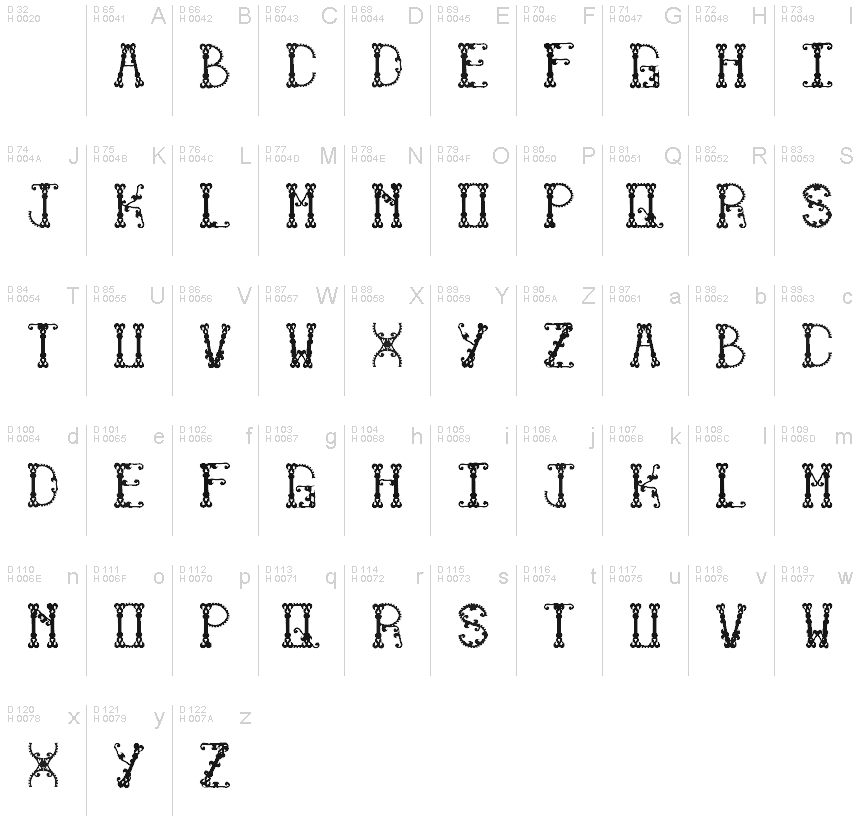
Limitless Regular
Limitless, a captivating display font crafted by the renowned designer T, exudes a sense of boundless potential and artistic flair. Its intricate, decorative letterforms seamlessly blend bold geometric shapes with delicate, flowing elements, creating a visually striking and mesmerizing aesthetic. The font's unique character invokes a mood of excitement and boundless creativity, making it an impactful choice for attention-grabbing design projects.
Limitless shines in applications that require a touch of elegance and drama, such as event branding, editorial layouts, and packaging design. Its versatility allows it to seamlessly transition between bold, eye-catching headlines and sophisticated, elegant accents, making it a valuable addition to any designer's toolkit.
This typeface was created for a school project. The client chosen for inspiration was Twitter. Twitter was highly recognized for their ability to cram a bunch of awesomeness into a tiny space, most recently, their time limit on Vine. This is where the inspiration for this modular typeface design came from. Even with the restriction of 6 seconds on Vine, there are still so many different things one can do within those limitations. This typeface has a small amount of modules, yet, there are still so many things that can be done with them. It might even be said the possibilities are limitless.